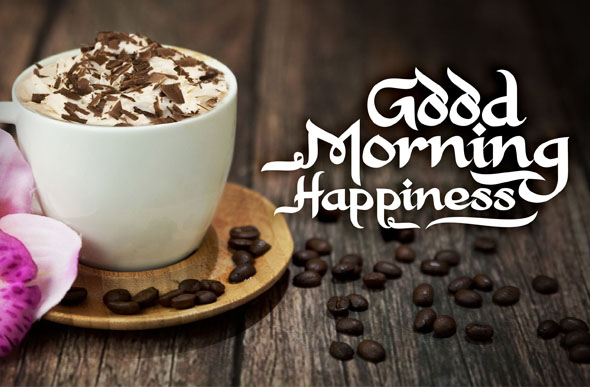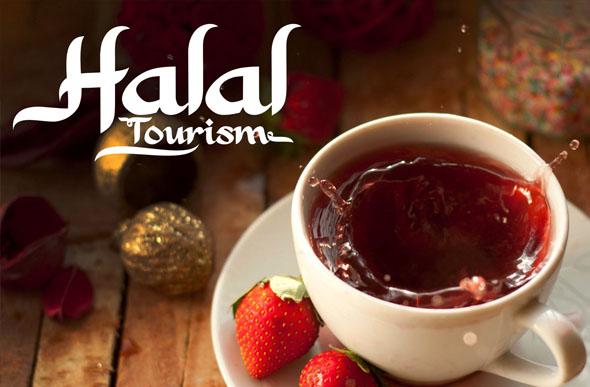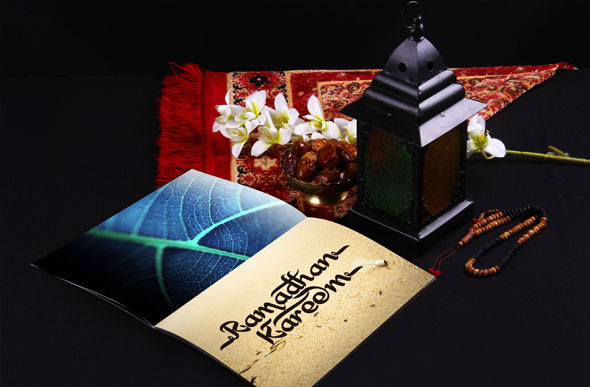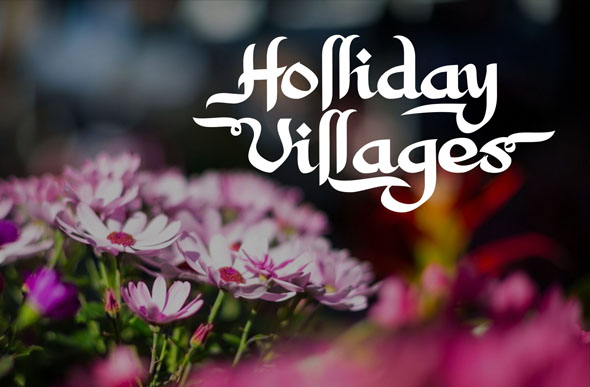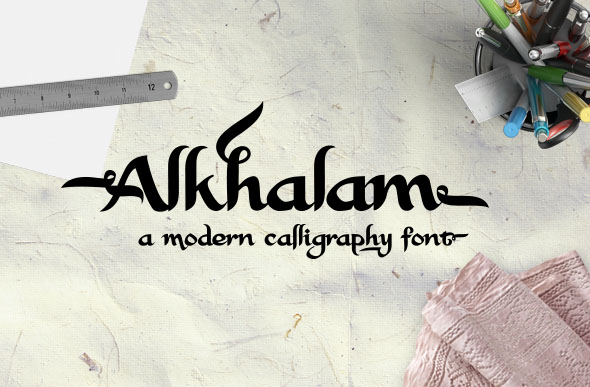
Introducing Alkhalam Font: The Modern Typeface for Bold Designs
In the world of typography, a good font can make all the difference in creating a lasting impression. For designers and crafters looking for a modern typeface with a bold style, Alkhalam Font is an excellent choice. This versatile font can be used for a wide range of purposes, from headings and posters to logos, invitations, and more.
What is Alkhalam Font?
Alkhalam Font is a contemporary typeface designed to make a statement. Its bold style and sleek lines make it perfect for designs that require a strong visual impact. Whether you’re working on a branding project, creating a poster, or designing a logo, Alkhalam Font is an excellent choice.
Uses of Alkhalam Font
One of the best things about Alkhalam Font is its versatility. It can be used for a variety of purposes, including:
- Headings: Use Alkhalam Font to create eye-catching headings for your website, blog, or marketing materials.
- Posters: Create stunning posters for events, promotions, or announcements with Alkhalam Font.
- Logos: Design a bold and memorable logo for your brand using Alkhalam Font.
- Invitations: Add a touch of elegance to your invitations with Alkhalam Font.
- T-shirts: Create stylish and bold designs for t-shirts using Alkhalam Font.
- Letterheads: Use Alkhalam Font to create professional-looking letterheads for your business.
- Signage’s: Design eye-catching signage’s for your business or event with Alkhalam Font.
- News: Use Alkhalam Font to create bold and attention-grabbing headlines for news articles.
- Badges: Design custom badges for events, conferences, or meetings with Alkhalam Font.
- Labels: Create stylish labels for products, files, or folders using Alkhalam Font.
Why Choose Alkhalam Font?
So, why should you choose Alkhalam Font for your design projects? Here are a few reasons:
- Unique and Modern Design: Alkhalam Font has a unique and modern design that will make your designs stand out.
- Versatile: Alkhalam Font can be used for a wide range of purposes, making it a great addition to your font library.
- Easy to Read: Despite its bold style, Alkhalam Font is easy to read, making it perfect for designs that require a clear and concise message.
- High-Quality: Alkhalam Font is a high-quality font that will ensure your designs look professional and polished.
Tips for Using Alkhalam Font
Here are a few tips for using Alkhalam Font in your design projects:
- Use it for Headings: Alkhalam Font is perfect for headings, so use it to create eye-catching titles for your designs.
- Experiment with Colors: Alkhalam Font looks great in bold colors, so don’t be afraid to experiment with different colors and gradients.
- Pair it with Other Fonts: Alkhalam Font can be paired with other fonts to create a unique and interesting design.
- Use it for Branding: Alkhalam Font is perfect for branding projects, so use it to create a bold and memorable logo for your business.
In conclusion, Alkhalam Font is a modern typeface with a bold style that can be used for a wide range of purposes. Its versatility, unique design, and high-quality make it an excellent choice for designers and crafters looking to create stunning designs. Whether you’re working on a branding project, creating a poster, or designing a logo, Alkhalam Font is a great addition to your font library.